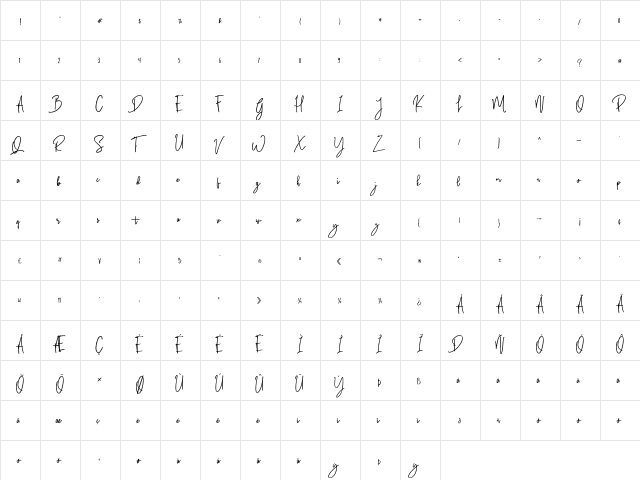
Salute Riches Free Regular
Design Context for Salute Riches Free Typeface
Salute Riches Free is a composed and adaptable typeface that performs quietly and consistently across a wide range of design contexts.